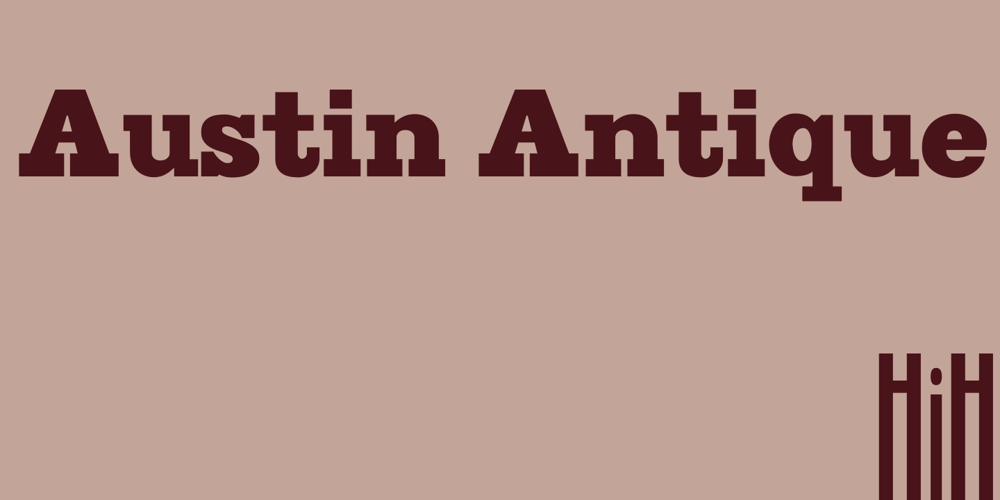
Austin Antique Font Family was designed by Richard Austin and published by HiH. Austin Antique contains 1 styles and family package options. “More is better” may have been the motto of Richard Austin of Austin and Son’s Imperial Letter-Foundry on Worship Street at Finsbury Square in London when he designed and cut his Antique typeface. The year it was created is uncertain, but it is known to have appeared in a specimen book produced in 1827. At first glance, the upper case letters of Austin Antique look very much like Figgins Antique. But, upon examination, one will note that the Austin face is much darker. In general, the letters designed and cut by Richard Austin have fatter strokes, larger serifs and smaller counters — more metal and less daylight. The premise was that the darker the letter, the more attention an ad using the typeface would receive. In old pictures of London and Paris one may see walls crowded with posters and “bills” — competing for the attention of the passerby. Morris and Updike aside, the early nineteenth century marked the beginning of a commercial as well as industrial revolution. Patterns of commerce were changing. With new methods of marketing came the need for new typefaces to support the new methods. Foundries found the display types were very profitable and competed most energetically and creatively for the trade. There was a lot of trial-and-error. Some ideas faded away. Others, like the Antiques or Egyptians, were refined and developed. From them came the Clarendons that were to prove both popular and long lasting — because they worked. Their job was to sell goods, not please the aesthetic sensibilities of the critics. They did their job well. Austin Antique has a full Western European character set, plus the following ligatures: ct, st, fi, fl, ff, ffi and ffl. Tabular numbers. Surprisingly readable.